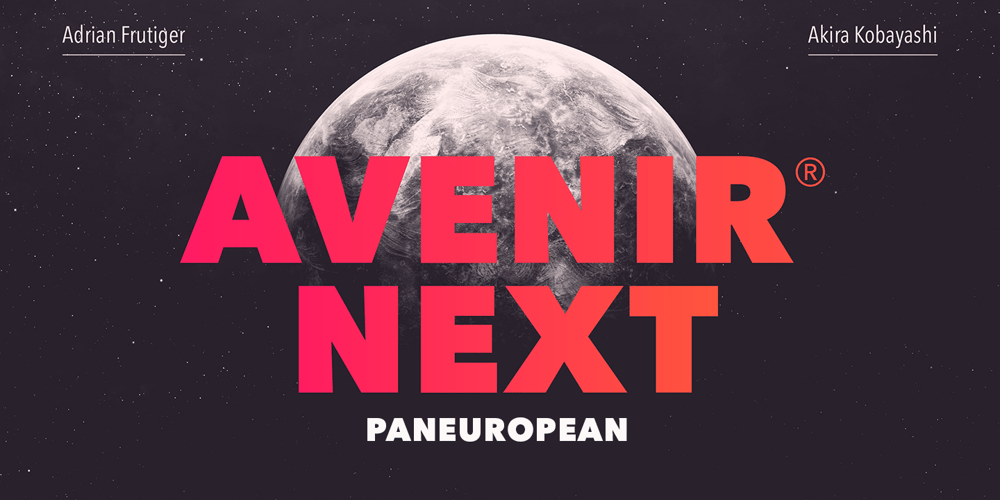
Avenir Next Paneuropean Font Family was designed by Adrian Frutiger, Akira Kobayashi and published by Linotype. Avenir Next Paneuropean contains 56 styles and family package options. Avenir Next Paneuropean is a new take on a classic face—it’s the result of a project whose goal was to take a beautifully designed sans and update it so that its technical standards surpass the status quo, leaving us with a truly superior sans family.This family is not only an update though, in fact it is the expansion of the original concept that takes the Avenir Next design to the next level. In addition to the standard styles ranging from UltraLight to Heavy, this 56-font collection offers condensed and semi condensed faces that rival any other sans on the market in on and off—screen readability at any size alongside heavy weights that would make excellent display faces in their own right and have the ability to pair well with so many contemporary serif body types. Overall, the family’s design is clean, straightforward and works brilliantly for blocks of copy and headlines alike.Akira Kobayashi worked alongside Avenir’s esteemed creator Adrian Frutiger to bring Avenir Next Pro to life. It was Akira’s ability to bring his own finesse and ideas for expansion into the project while remaining true to Frutiger’s original intent, that makes this not just a modern typeface, but one ahead of its time.Complete your designs with these perfect pairings: Dante™, Joanna® Nova, Kairos™, Menhart™, Soho® and ITC New Veljovic®.